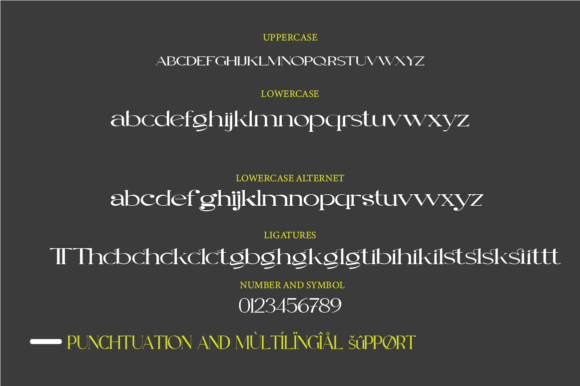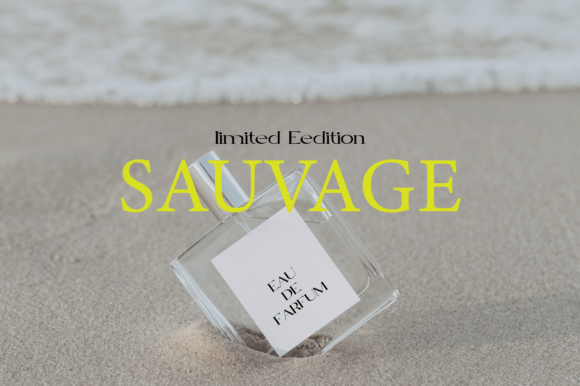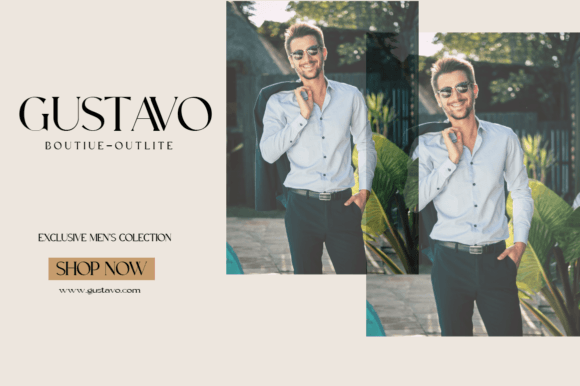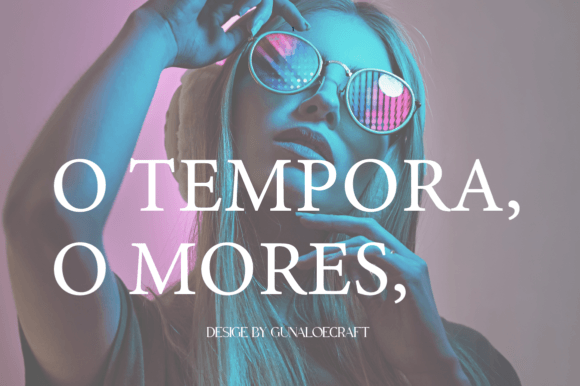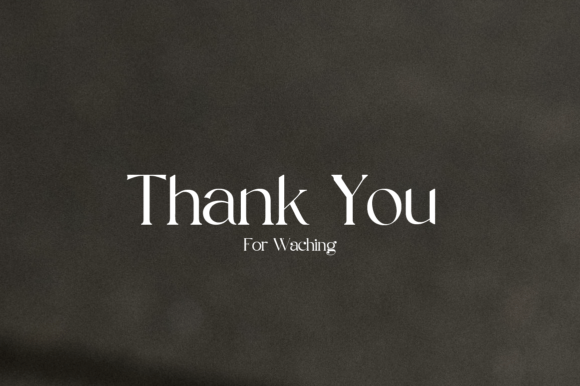
Introducing Arumi Font: Elevate Your Designs with Elegance and Sophistication
In the world of typography, a font can make or break a design. For designers and crafters looking for a modern, elegant, and versatile font, Arumi Font is an excellent choice. This modern serif font is designed to add a touch of sophistication and luxury to any project, making it perfect for a wide range of applications.
What is Arumi Font?
Arumi Font is a carefully crafted modern serif font that exudes elegance and refinement. Its fancy and elegant design makes it an ideal choice for designers who want to create stunning visual content. Whether you’re working on a logo, typography quotes, or branding materials, Arumi Font is designed to help you achieve a professional and modern look.
One of the standout features of Arumi Font is its versatility. This font is ideally suited for a wide variety of projects, including:
- Signature and stationery designs
- Logo and branding materials
- Wedding and event designs
- Typography quotes and posters
- Magazine and book covers
- Website headers and digital design
- Clothing and fashion branding
- Packaging design and more
Arumi Font is perfect for designers who want to create cohesive and visually appealing designs across various mediums. Its modern and elegant design ensures that your projects stand out from the crowd and leave a lasting impression.
Perfect for Fashion-Related Branding and Editorial Design
Arumi Font is particularly well-suited for fashion-related branding and editorial design. Its luxurious and sophisticated design makes it an excellent choice for designers who want to create high-end fashion content. Whether you’re working on a fashion magazine, clothing brand, or beauty product, Arumi Font is sure to elevate your designs and make them look professional and modern.
Key Features of Arumi Font
So, what makes Arumi Font an excellent choice for designers? Here are some of its key features:
- Modern serif design with elegant lines and curves
- Versatile and adaptable for various design projects
- Perfect for fashion-related branding and editorial design
- Supports multiple languages and characters
- Easily customizable to fit your design needs
Why Choose Arumi Font?
With so many fonts available, why choose Arumi Font? Here are a few reasons why designers and crafters love Arumi Font:
- Unique and elegant design that stands out from the crowd
- High-quality font that ensures crisp and clear rendering
- Easy to use and customize for your design needs
In conclusion, Arumi Font is an excellent choice for designers and crafters looking for a modern, elegant, and versatile font. Its sophisticated design and versatility make it perfect for a wide range of projects, from fashion branding to editorial design. With its key features, ease of use, and excellent customer support, Arumi Font is sure to elevate your designs and help you achieve a professional and modern look.